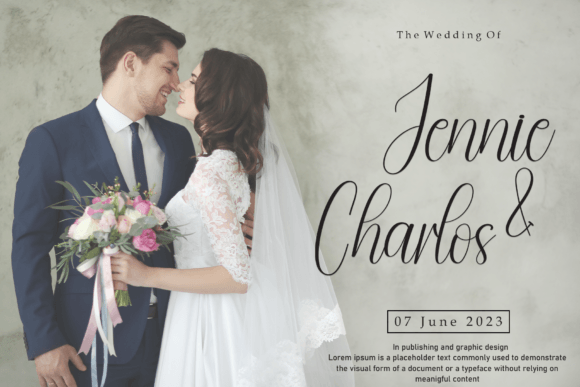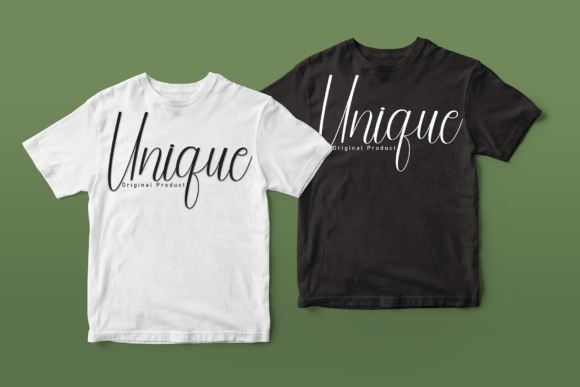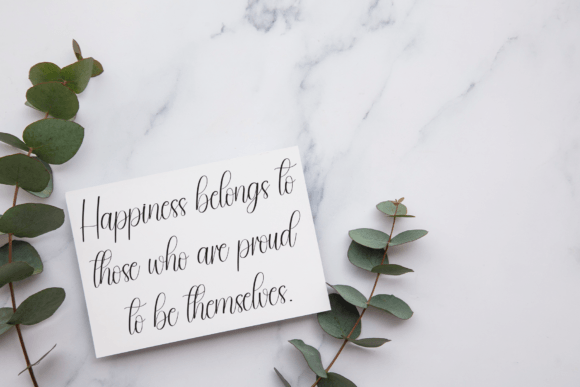
Introduction to Magneton Font
Magneton is a modern handwritten script.
This font looks natural, stylish, and perfect for any extraordinary project that requires a handwritten feel Its versatile style looks lovely on wedding invitations, thank you cards, quotes, greeting cards, logos, business cards, and every other design which needs a customized touch.